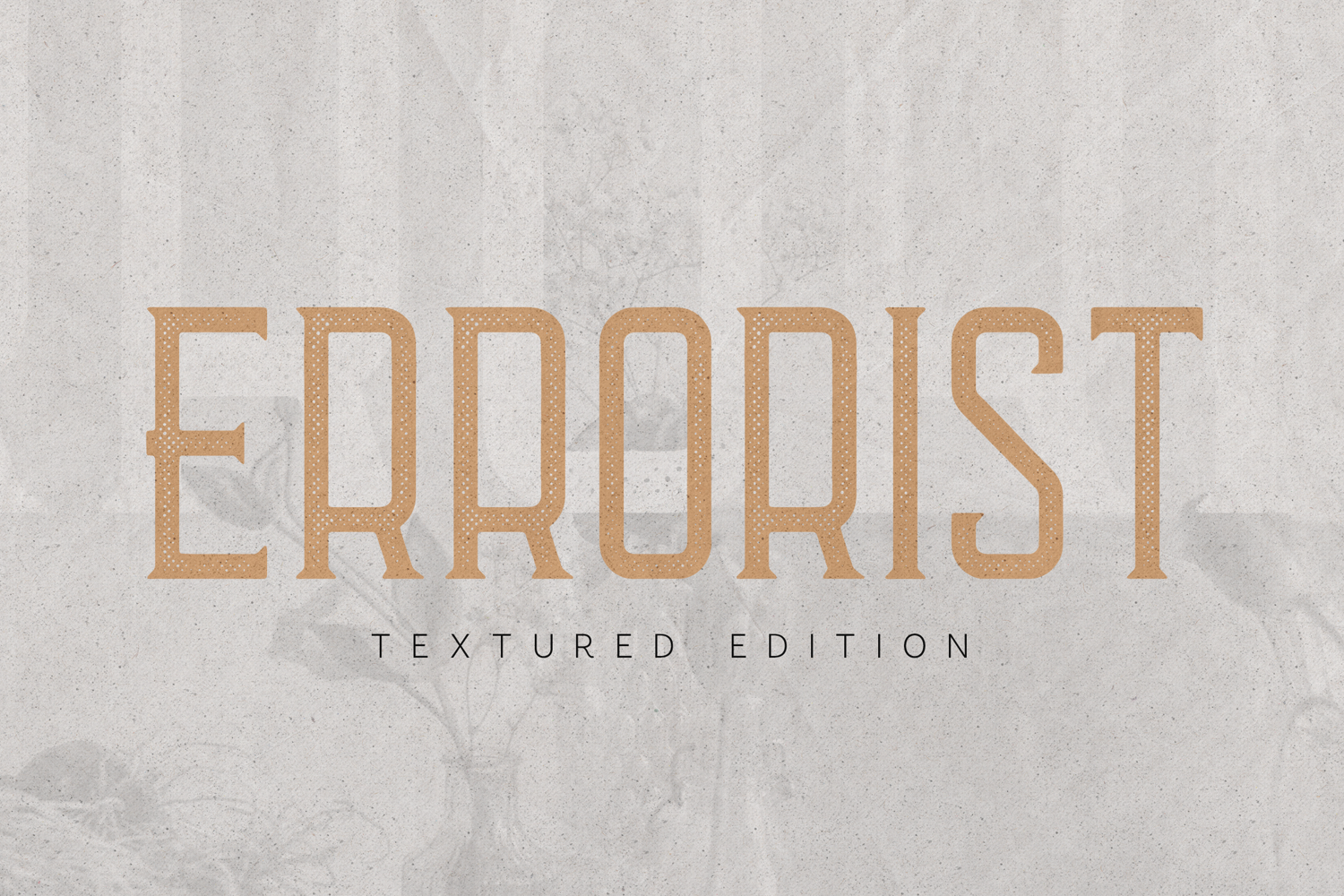
Errorist Textured Vintage Serif Display Font
Errorist – Textured Edition is a bold vintage serif display font crafted to bring character, texture, and strong personality to modern design projects.
This typeface combines classic serif structure with a distinctive textured finish that gives the letters a slightly worn, printed look — perfect for projects that need authenticity and visual depth. The tall, slightly condensed proportions create a confident presence while maintaining excellent readability in headlines and branding applications.
Errorist was designed to work beautifully in logos, packaging, posters, editorial layouts, branding systems, signage, and vintage-inspired designs. The textured letterforms give your typography a handcrafted print aesthetic reminiscent of traditional letterpress and retro printmaking.
The font includes uppercase and lowercase characters, numbers, punctuation, and extended multilingual language support, allowing it to work across a wide range of international design projects.
Whether you’re building a bold brand identity or creating eye-catching headlines, Errorist delivers a powerful typographic voice with timeless vintage character.